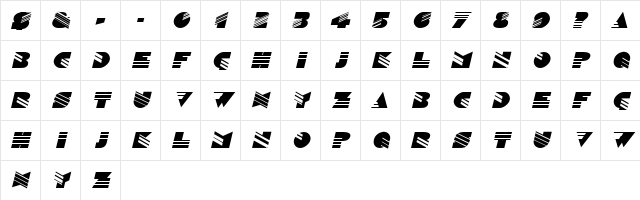
HesitateCaps Oblique Free Font
HesitateCaps Oblique
Complete HesitateCaps Oblique glyph index. Displaying only characters natively supported by HesitateCaps Oblique font.
Design Context for HesitateCaps
HesitateCaps is a composed and adaptable typeface that performs quietly and consistently across a wide range of design contexts. The slanted form adds forward momentum and visual energy.